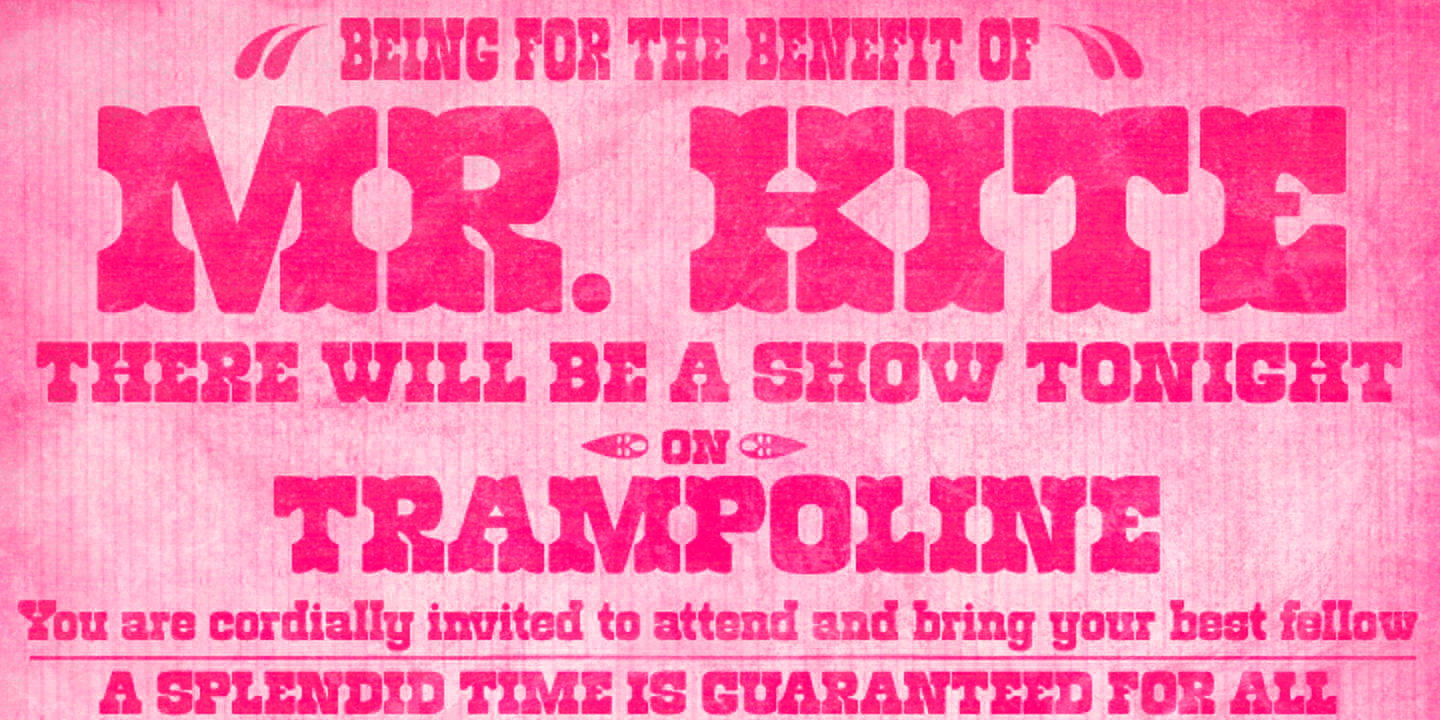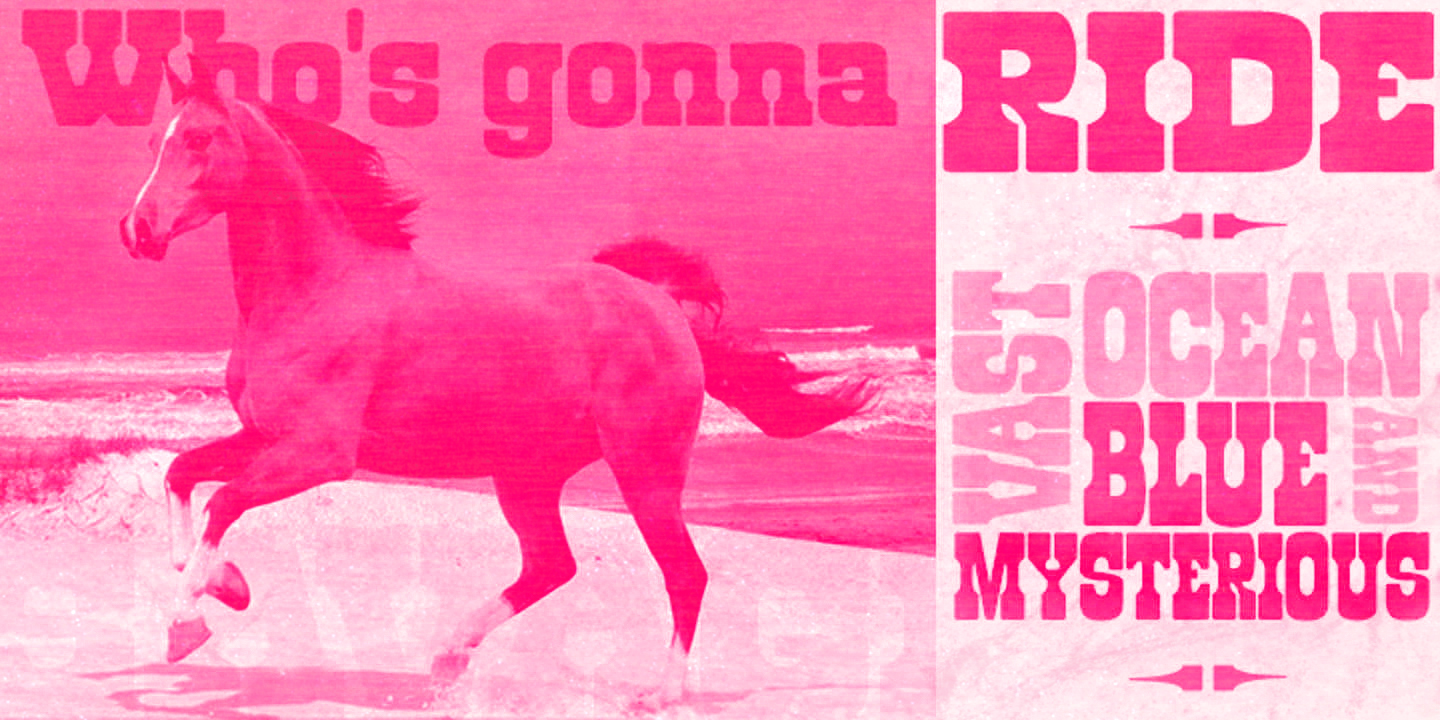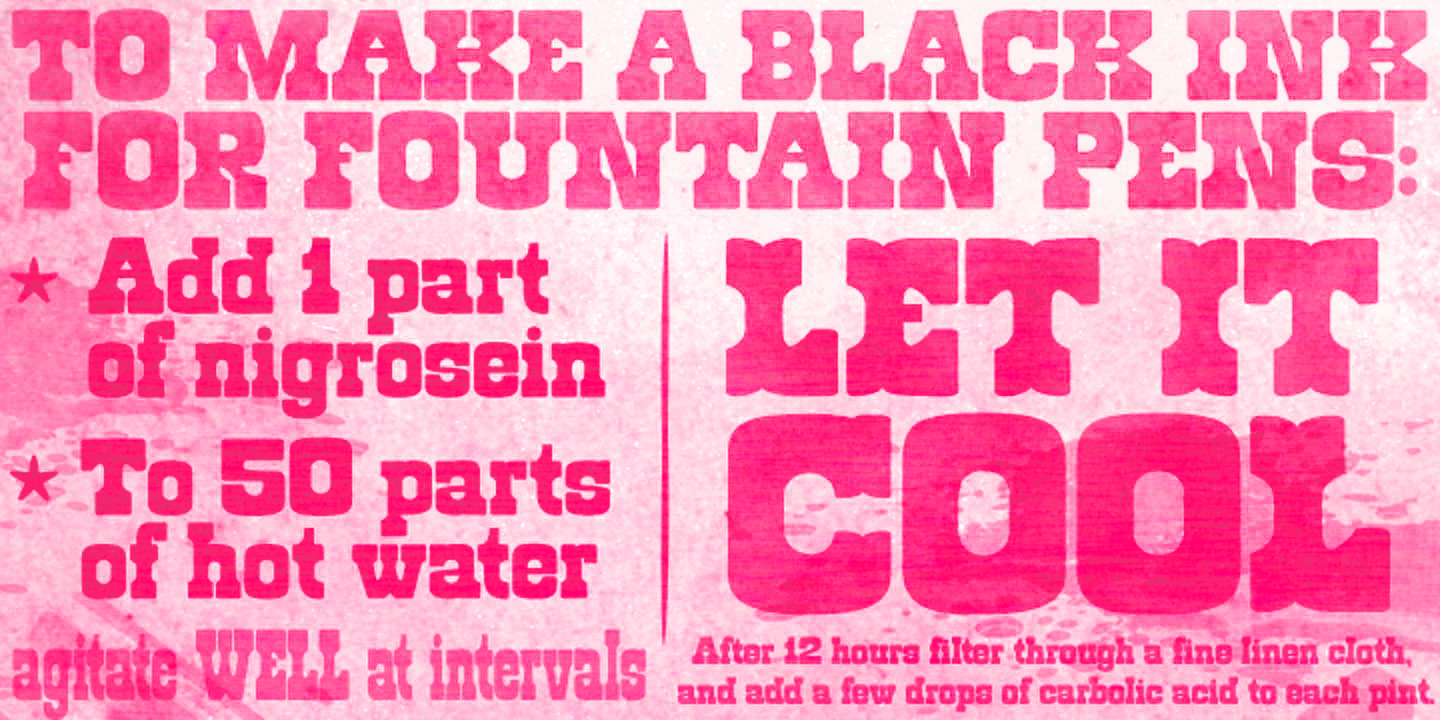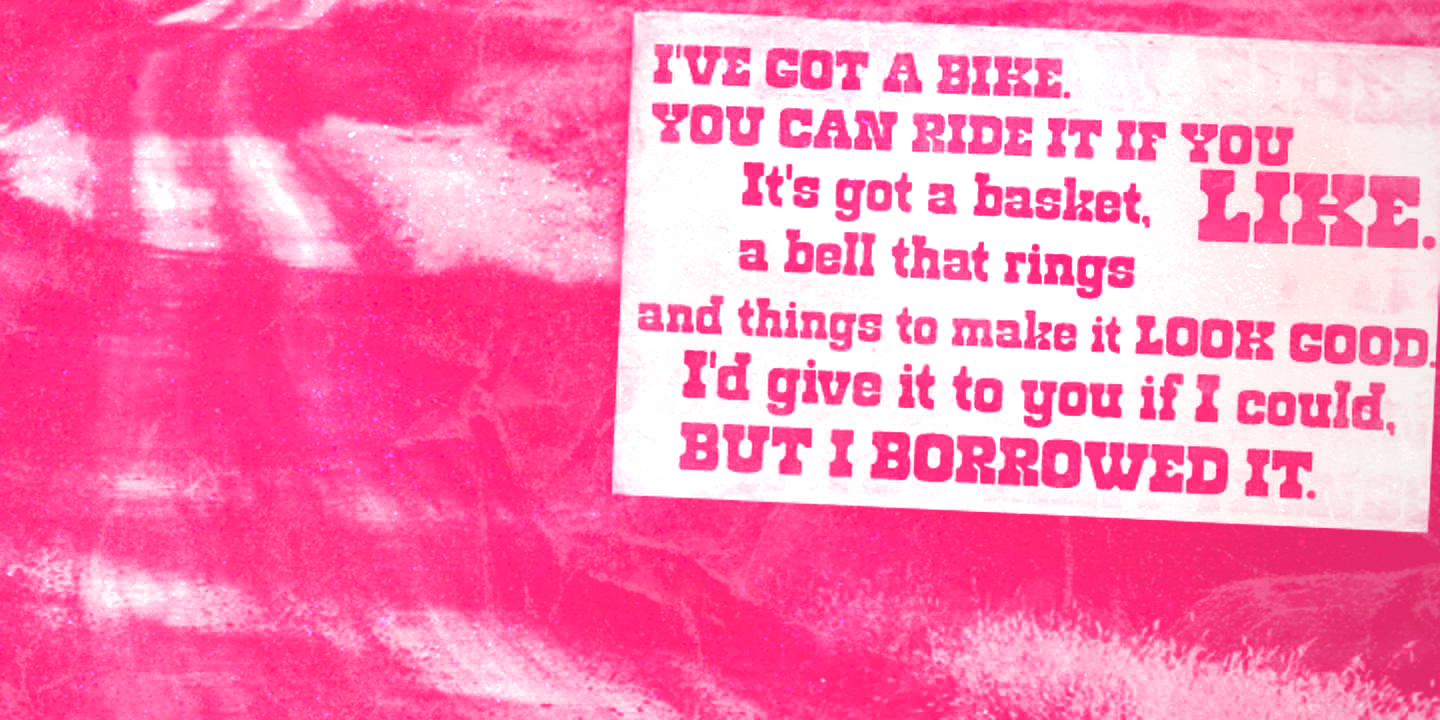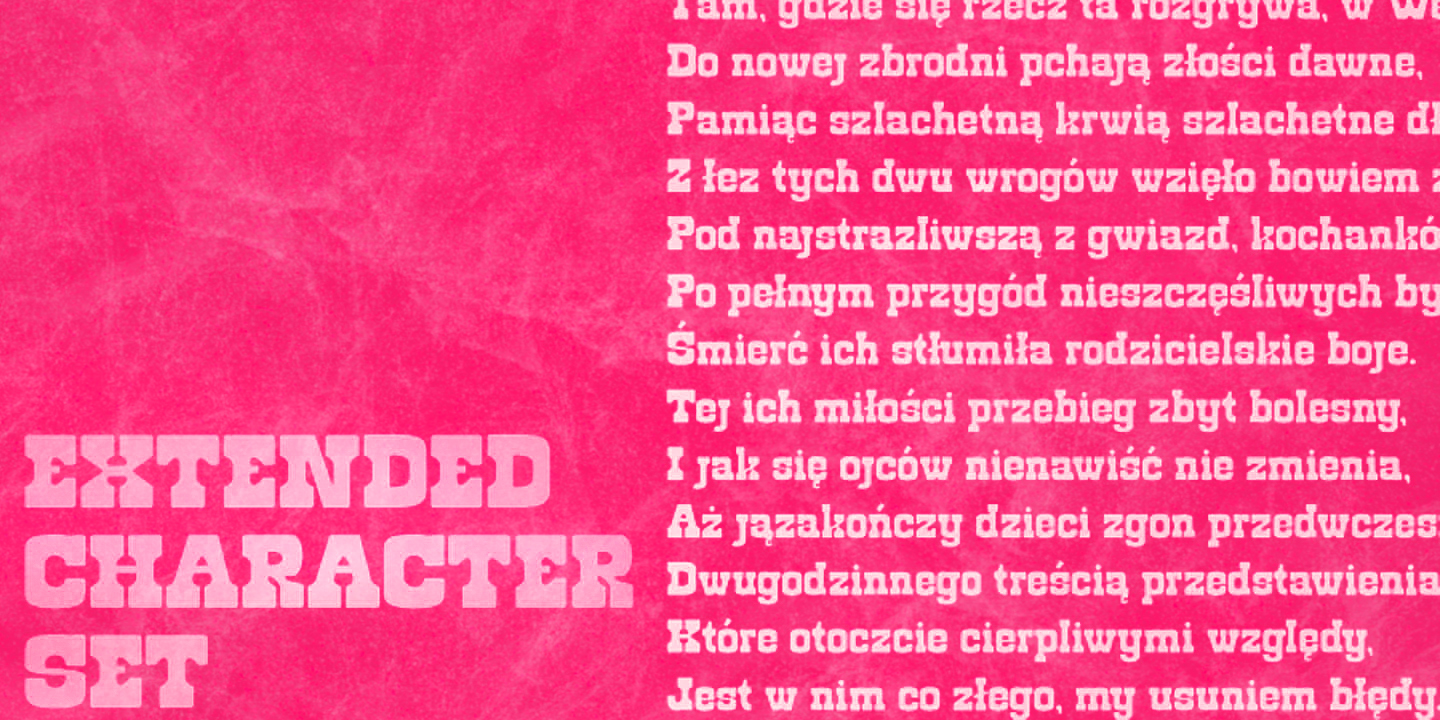
Roadway
Roadway is a sturdy serif family with an antique feel. It was inspired by the Clarendon wood types from the late 19th century. It comes in three styles — Normal, Condensed, and the more decorative Tuscan — for added flexibility. Of course, it is excellent for enormous posters, album covers, food packaging, and magazine headlines. Still, imaginative graphic designers will know it has enough personality to do much more!